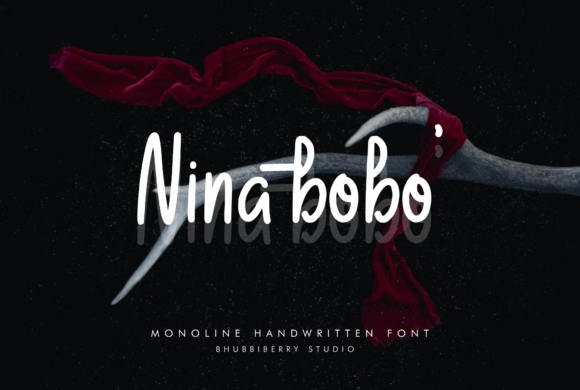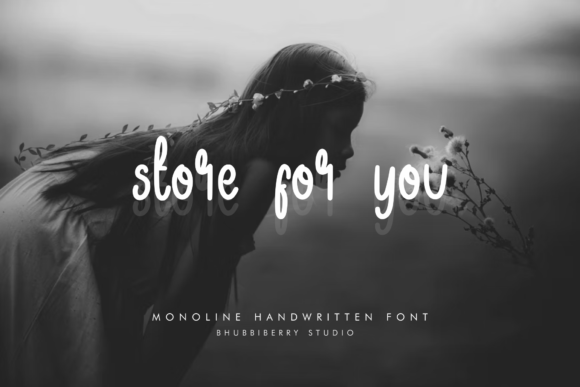
Lullaby Font
db-ku.com - Script & Handwritten -- Lullaby is a trendy handwritten monoline font. It is the best choice for creating eye-catching logos, branding, and quotes. Every letter has a unique and beautiful touch, which will make your design come alive!